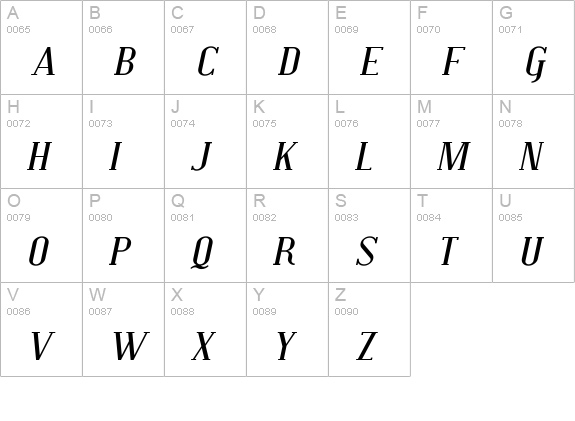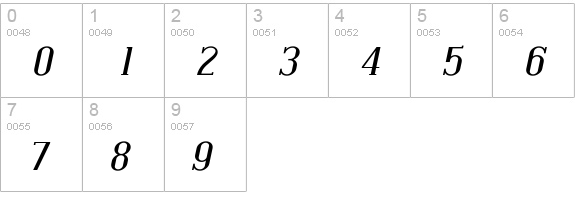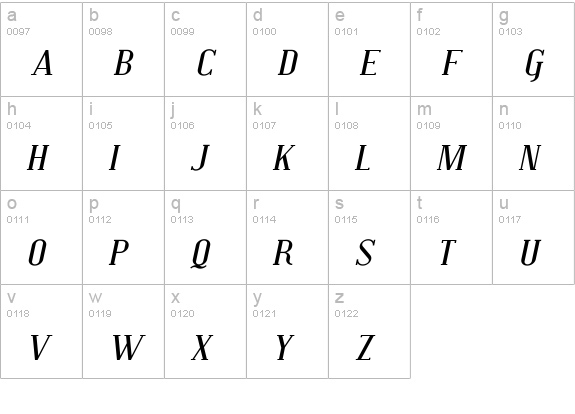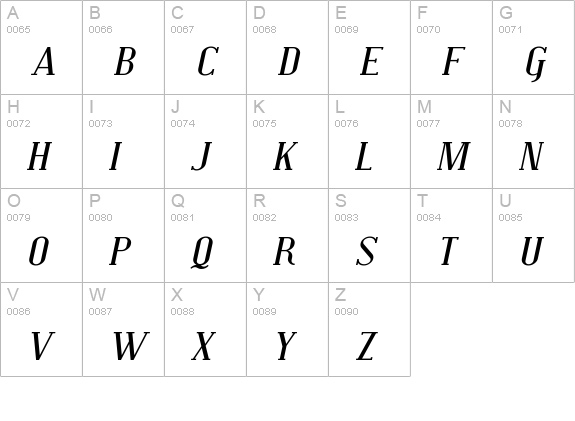
Covington SC Exp Italic is a distinctive, italic variant in the Covington typeface family \xE2\x80\x94 well suited to design and typography projects.
Covington SC Exp Italic font is a stylish and sophisticated typeface that exudes elegance and charm. Its elongated and slanted design adds a touch of modernity to any text or design project. This font is perfect for creating eye-catching headlines, invitations, logos, and more. What sets Covington SC Exp Italic font apart is that it is available for free download at FontsMarket.com. This means you can easily access this beautiful font and use it for both personal and commercial projects without any cost. Don't miss out on the opportunity to elevate your designs with this stunning typeface that combines classic appeal with a contemporary twist.